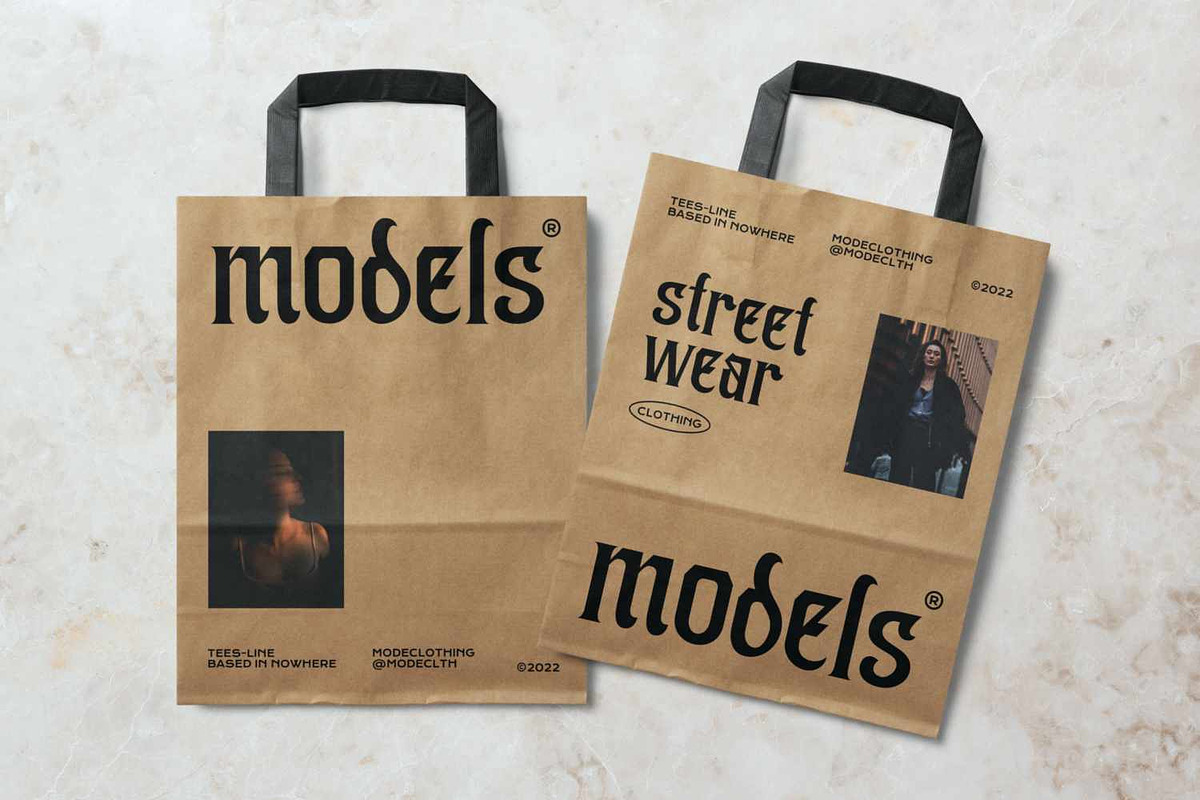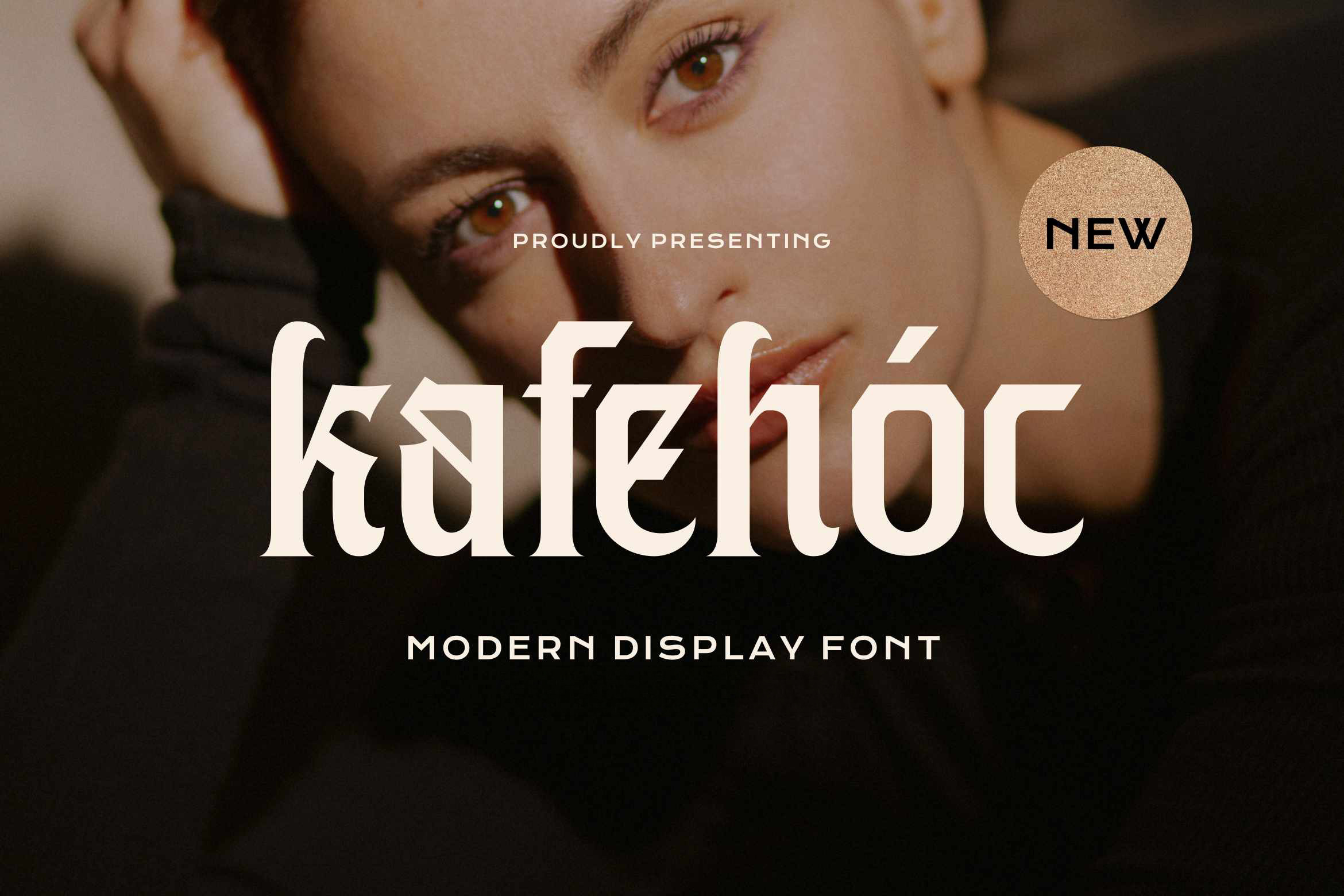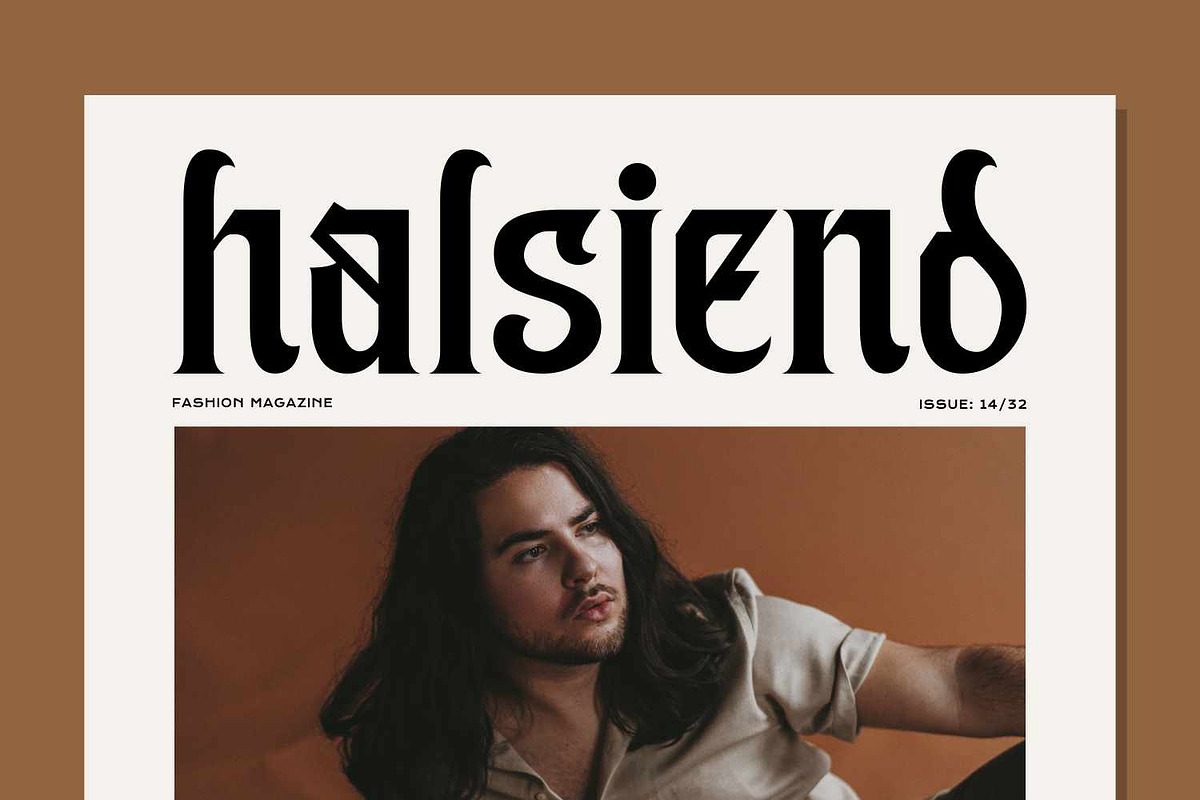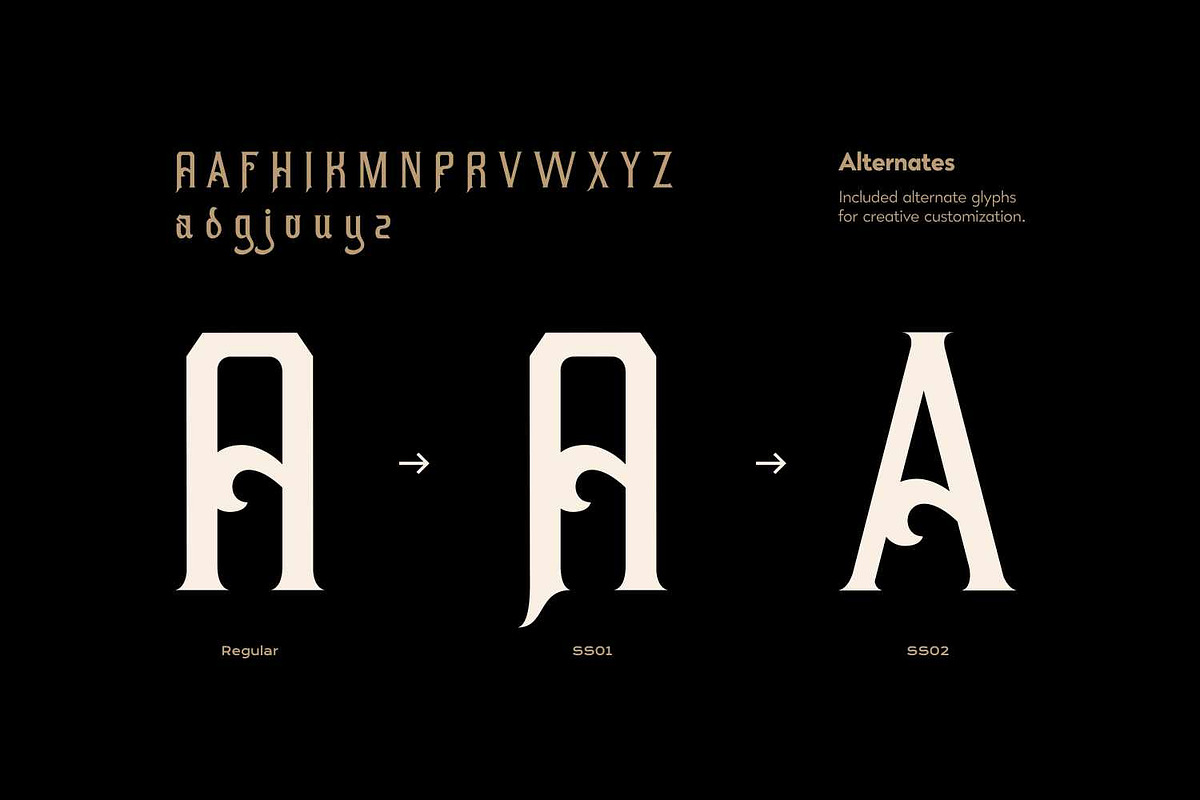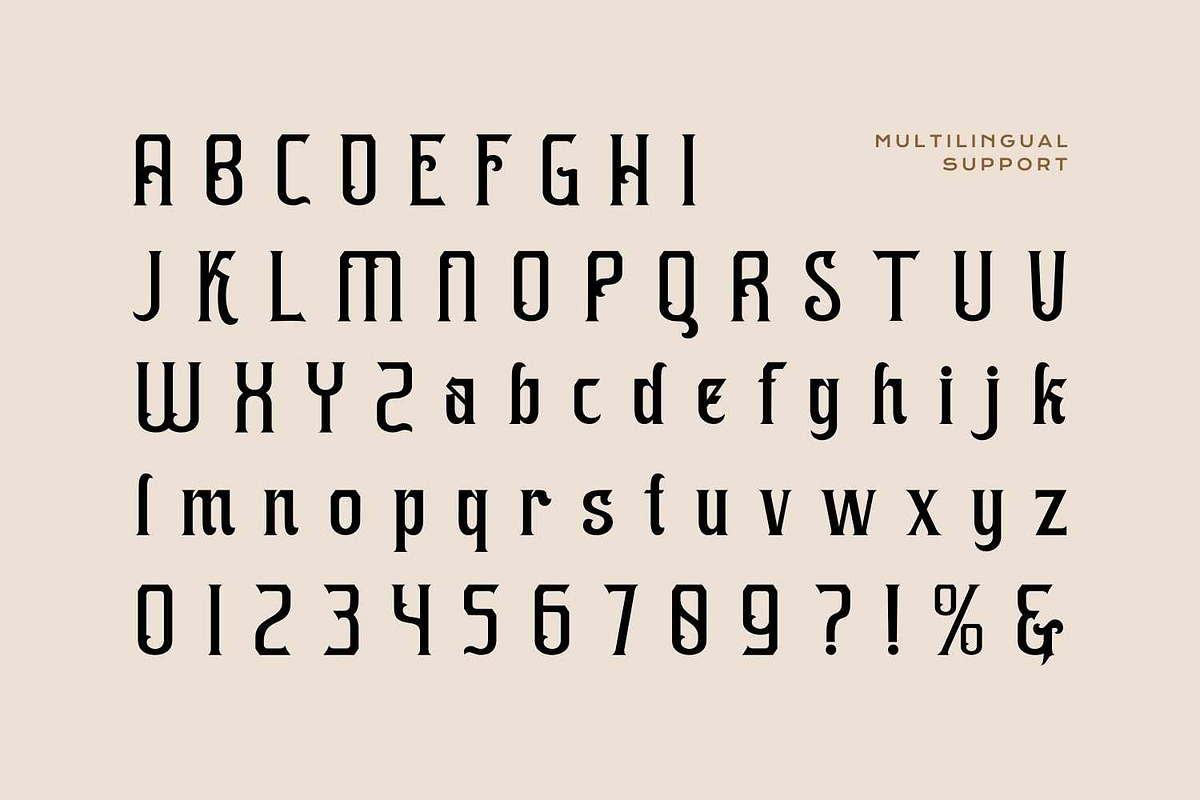
Kafehoc - Modern Blackletter Font
Kafehóc is a striking modern display font that masterfully blends traditional Blackletter aesthetics with contemporary, minimalist design. It features a unique juxtaposition of sharp, aggressive angles and soft, fluid curves, creating a "Modern Gothic" feel that is both edgy and sophisticated.
It is designed for high impact applications like fashion editorials, luxury branding, magazine titles, coffee packaging, and streetwear packaging.
- Alternates and Ligatures.